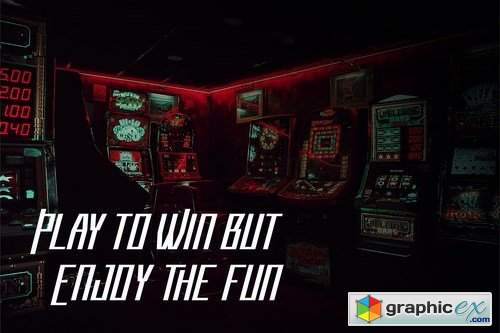
Cyberflash Display Font
Cyberflash | Display Font with a calligraphy style, So beautiful on invitation like greeting cards, branding materials, business cards, quotes, posters, and more!